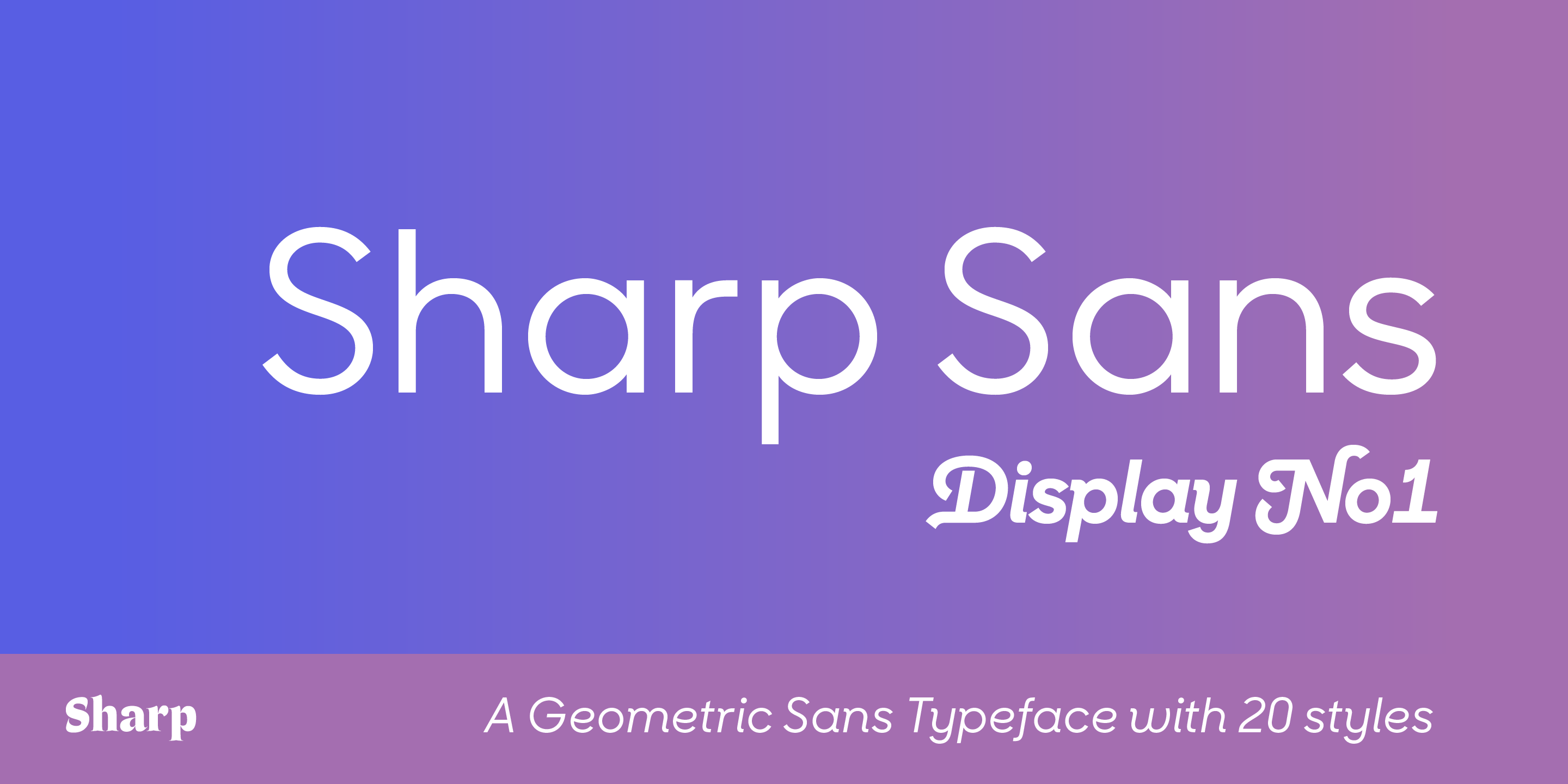
Sharp Sans Display No. 1 Font Free Download is a clean, geometric sans-serif typeface designed for impactful headlines and display use. With its sharp edges and contemporary style, this font brings precision and clarity to your design projects, making it perfect for branding, advertising, and editorial layouts.
Featuring balanced letterforms and strong visual contrast, Sharp Sans Display No. 1 ensures excellent legibility even at large sizes. Its modern aesthetic makes it a favorite for designers aiming for a sleek and professional look.
Sharp Sans Display No. 1 Font Free Download offers a variety of weights and styles, providing versatility for diverse design needs. It integrates seamlessly with design platforms like Adobe Creative Suite, Figma, Sketch, and Canva, enhancing your creative workflow.